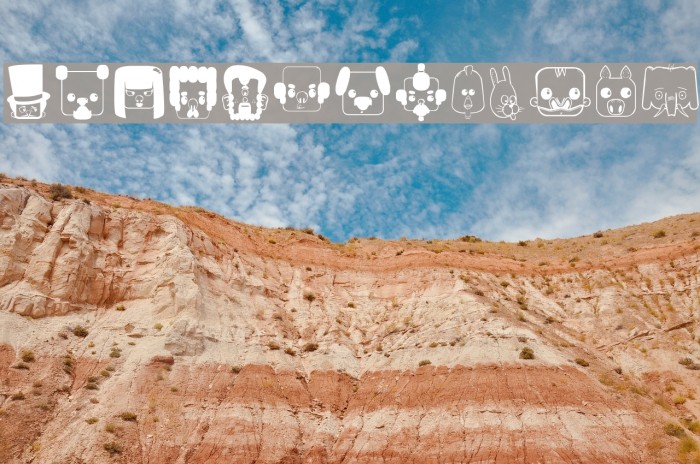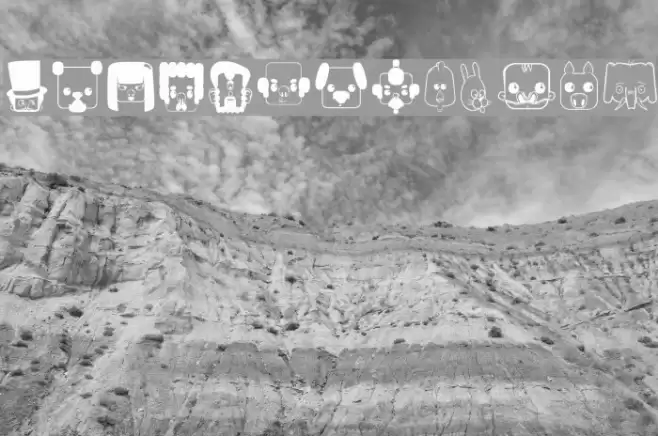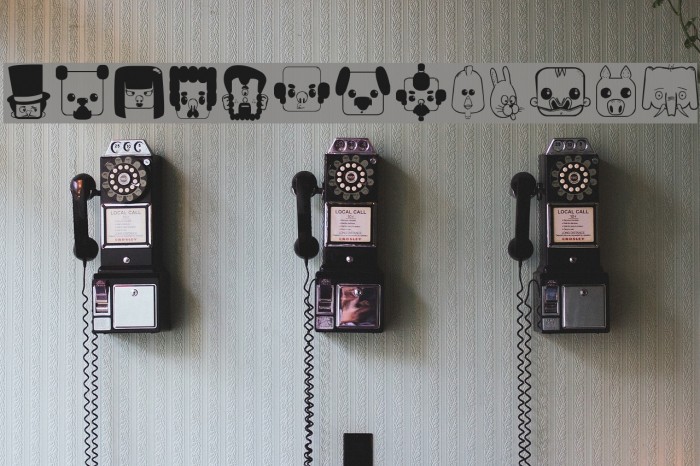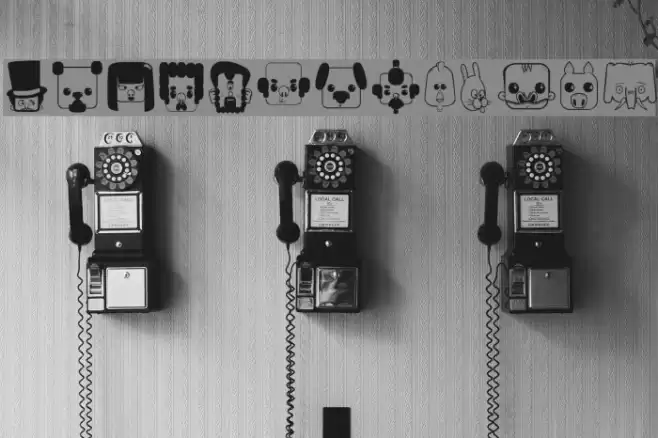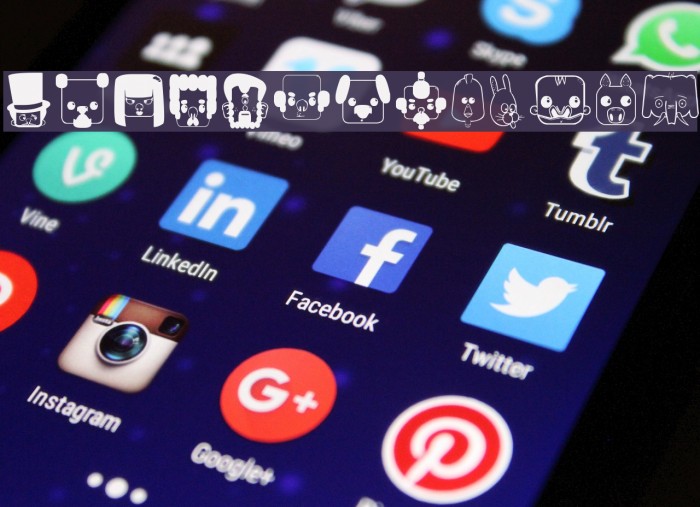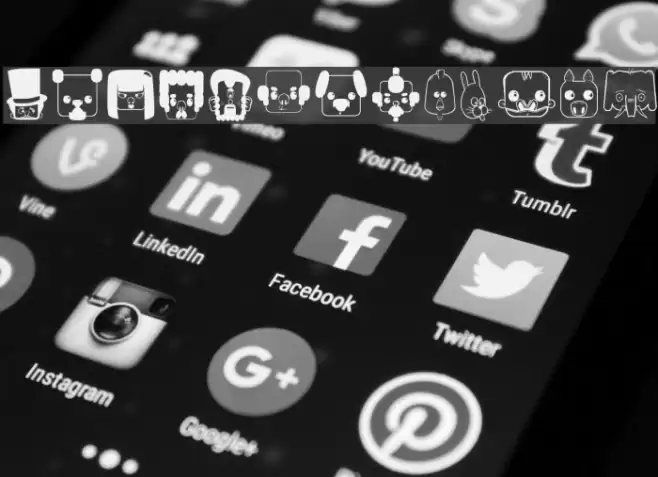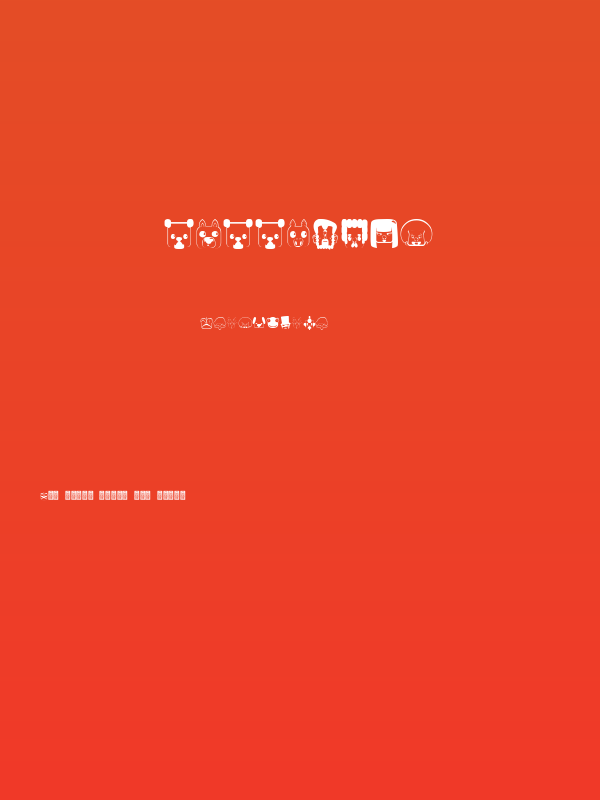
bubbledco Font
bubbledco Description
A playful, decorative font where each character is represented by a unique cartoon face or totem-like icon, featuring bold outlines and whimsical, hand-drawn details.
| Overall Style | Decorative, Playful, Whimsical |
| Use Case | Logos, Posters, Headlines, Children's materials |
| Proposed Projects | Children's books, party invitations, playful branding, comic strips, educational materials. |